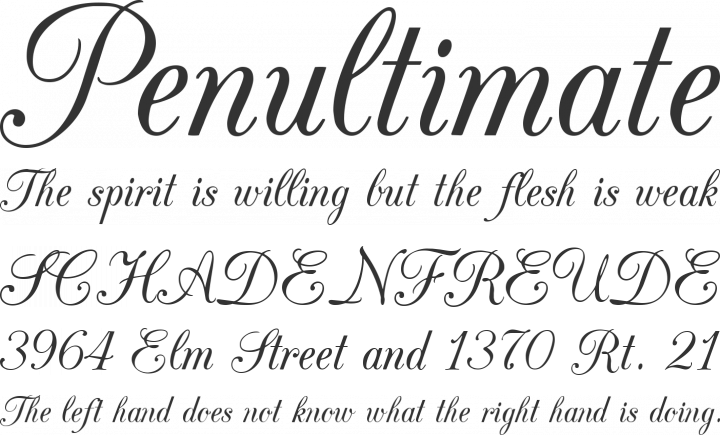
CAC Champagne is a distinctive English calligraphy font family that brings an elegant touch to your designs. It is available for easy download, providing a variety of formats to suit different needs. The @Font-Face kit includes TrueType Fonts, EOT fonts, WOFF fonts, SVG fonts, and Cufón fonts, ensuring compatibility across various platforms.